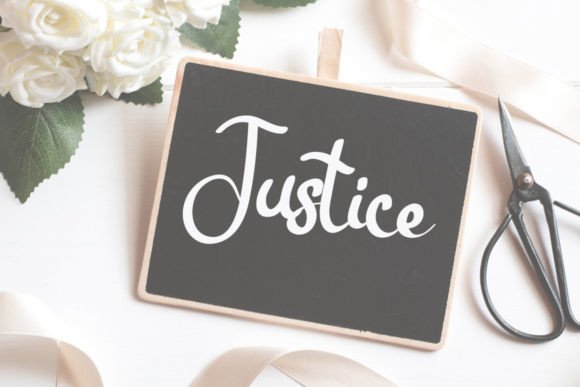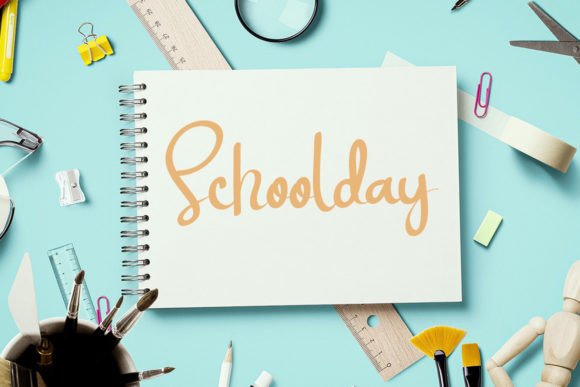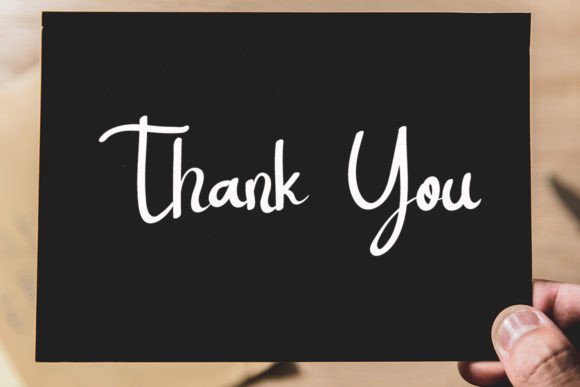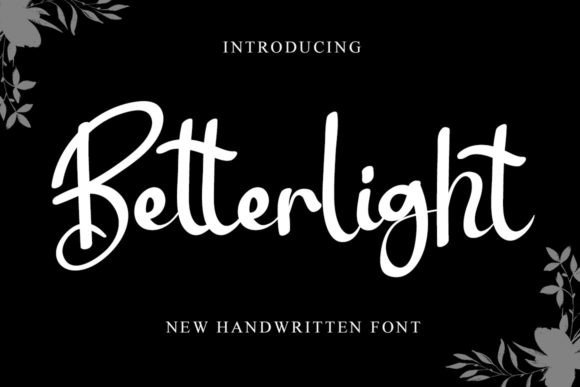
Betterlight Font: Elevate Your Designs with Elegance and Sophistication
In the world of typography, fonts play a crucial role in conveying the tone and personality of a design. Whether you’re working on a formal project or an informal one, the right font can make all the difference. Betterlight font is a stunning example of a typeface that can elevate your designs with its fresh, clean, and elegant style. In this article, we’ll dive into the features and benefits of Betterlight font, and explore how it can be used to create amazing projects.
What is Betterlight Font?
Betterlight font is a beautiful and sweet font that is perfect for designers and crafters looking for a typeface that exudes elegance and sophistication. Its clean and fresh design makes it an excellent choice for a wide range of projects, from formal documents to informal social media graphics.
Key Features of Betterlight Font
- Fresh and Clean Design: Betterlight font boasts a modern and sleek design that is perfect for creating visually appealing projects.
- Elegant and Sophisticated: The font’s elegant style makes it suitable for formal projects, such as event invitations, brochures, and business cards.
- Versatile: Betterlight font can be used for both formal and informal projects, making it a great addition to any designer’s toolkit.
- Easy to Read: The font’s clear and legible design ensures that your text is easy to read, even at small sizes.
Benefits of Using Betterlight Font
- Enhance Your Brand’s Image: Betterlight font can help you create a professional and polished image for your brand, making it perfect for businesses and entrepreneurs.
- Stand Out from the Crowd: The font’s unique and elegant design will help your project stand out from the competition, grabbing the attention of your audience.
- Use it for Headings and Titles: Betterlight font is perfect for headings and titles, adding a touch of elegance and sophistication to your design.
In conclusion, Betterlight font is an exceptional typeface that can elevate your designs with its fresh, clean, and elegant style. Its versatility, legibility, and sophistication make it an excellent choice for a wide range of projects, from formal documents to informal social media graphics. Whether you’re a designer, crafter, or entrepreneur, Betterlight font is a must-have in your toolkit.